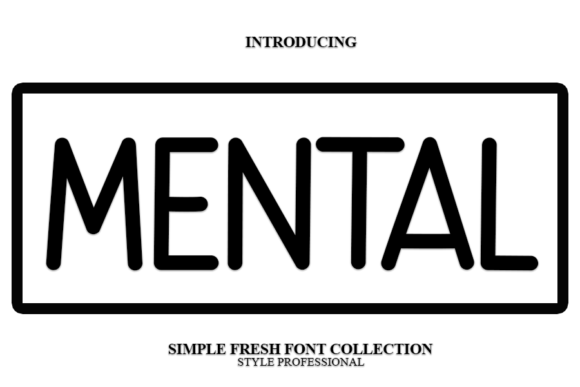
Prepare yourself to be spellbound by Mental Font, the captivating sans serif font family meticulously crafted by PAYJHOshop. This extraordinary font exudes a unique blend of sophistication and playfulness, making it the perfect choice for those seeking to add a touch of elegance and charm to their creative projects.
With its clean lines, sharp edges, and effortless flow, Mental Font possesses an inherent ability to elevate any design, whether it be a captivating logo, an eye-catching poster, or a heartfelt greeting card. Its versatility knows no bounds, as it seamlessly adapts to a myriad of applications, from digital designs and presentations to handcrafted creations and personalized merchandise.
Immerse yourself in the limitless possibilities that Mental Font offers. Unleash your imagination and let the font's inherent beauty captivate your audience, leaving a lasting impression that resonates with both elegance and charm. Its timeless appeal ensures that your designs will stand the test of time, radiating an aura of sophistication that is sure to leave a lasting impact.
Step into the world of Mental Font and discover the endless creative opportunities that await. Allow its graceful curves and distinctive letterforms to transform your words into works of art, captivating your audience with their inherent charm and elegance. Whether you're a seasoned designer or just starting your creative journey, Mental Font is the perfect companion, guiding you towards design excellence.